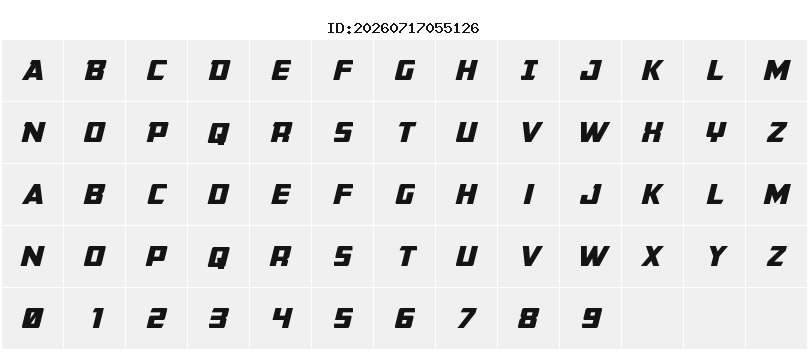
Buchanan Expanded Italic Preview
• Font Name: Buchanan Expanded Italic
• Font Style: Expanded Italic
• Full Font Name: Buchanan Expanded Italic
About Buchanan Expanded Italic.ttf
Buchanan Expanded Italic.ttf is a modern, elegant sans-serif font designed for ultimate readability and visual harmony. Perfect for branding, headlines, web design, and print materials.